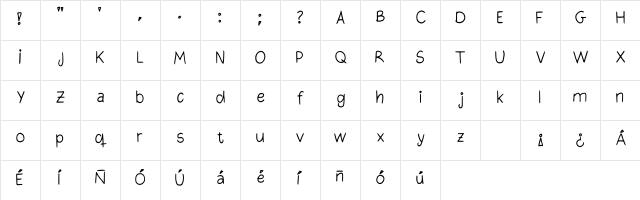
Pencil Regular Free Font
Pencil Regular
Design Context for Pencil
Pencil is a composed and adaptable typeface that performs quietly and consistently across a wide range of design contexts.